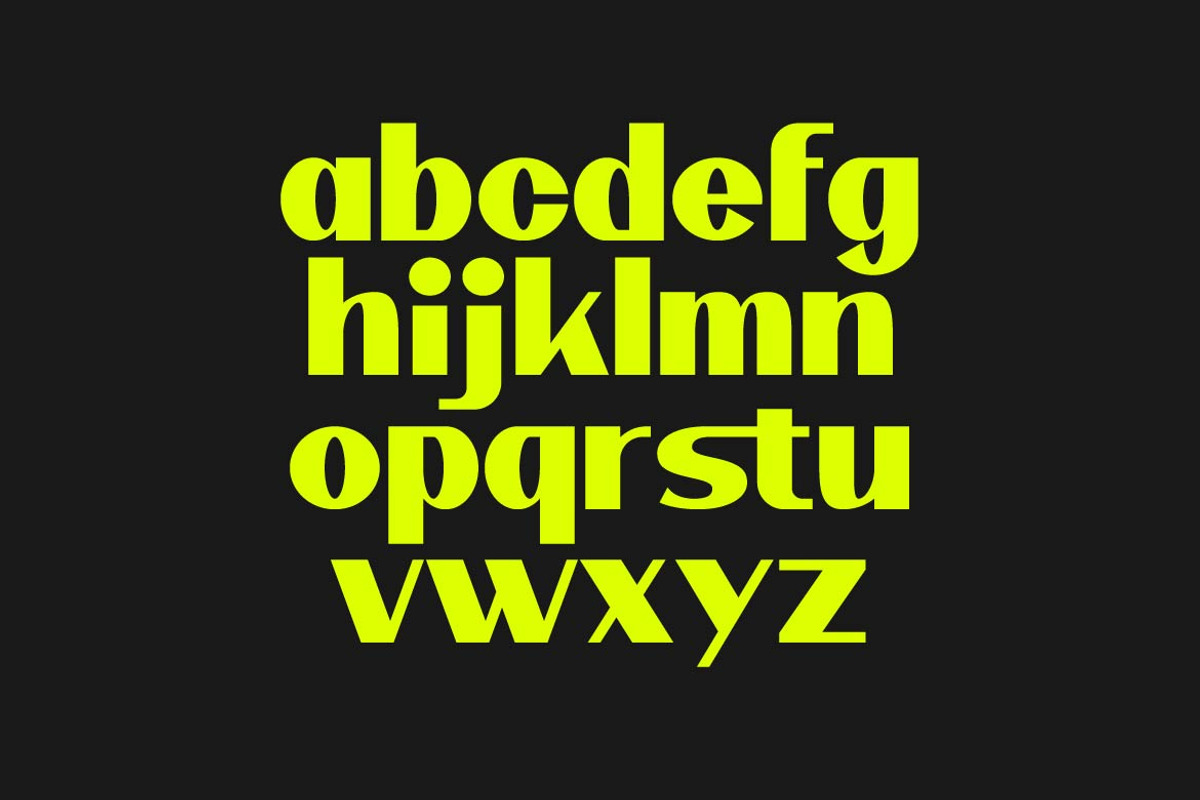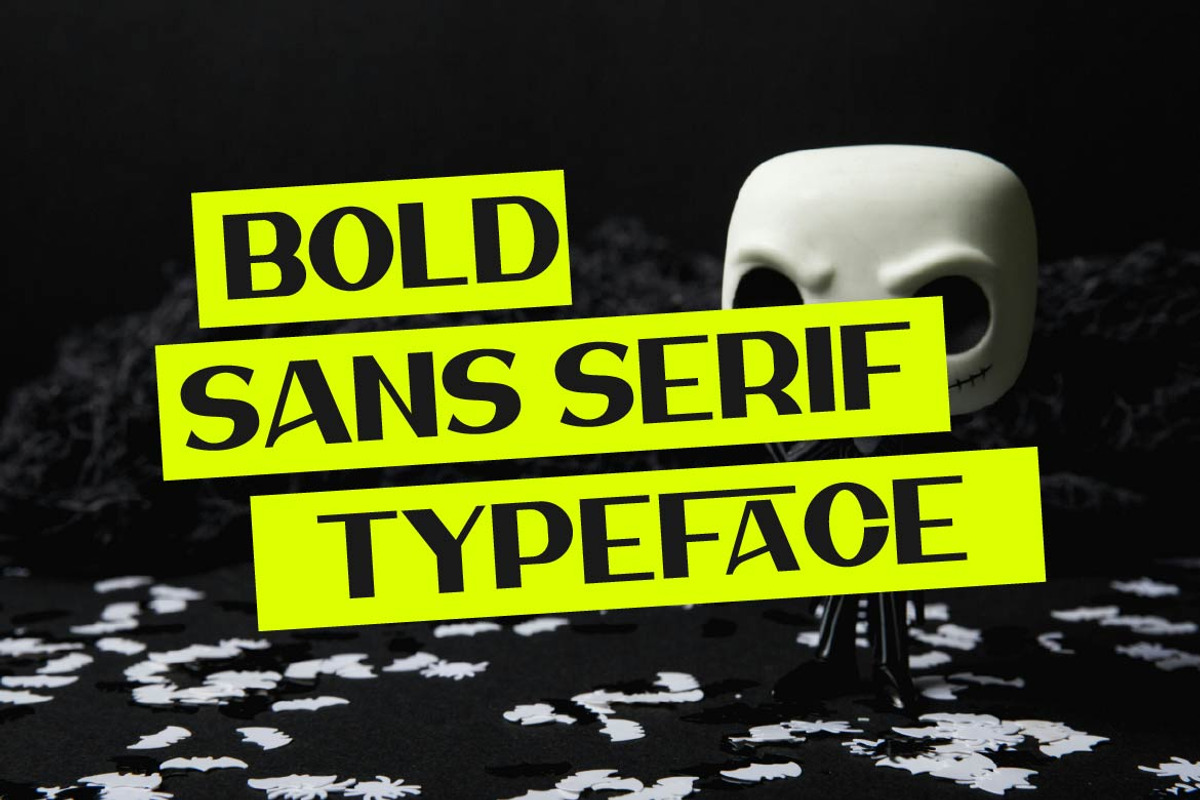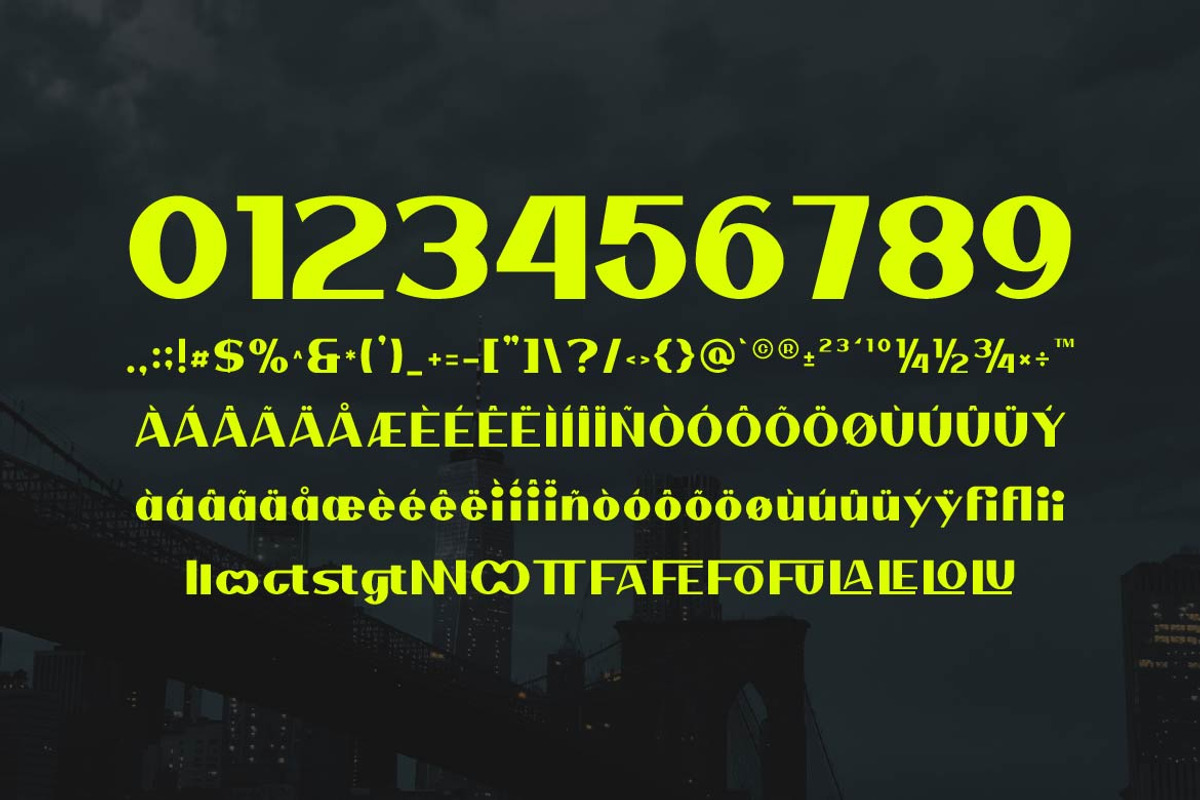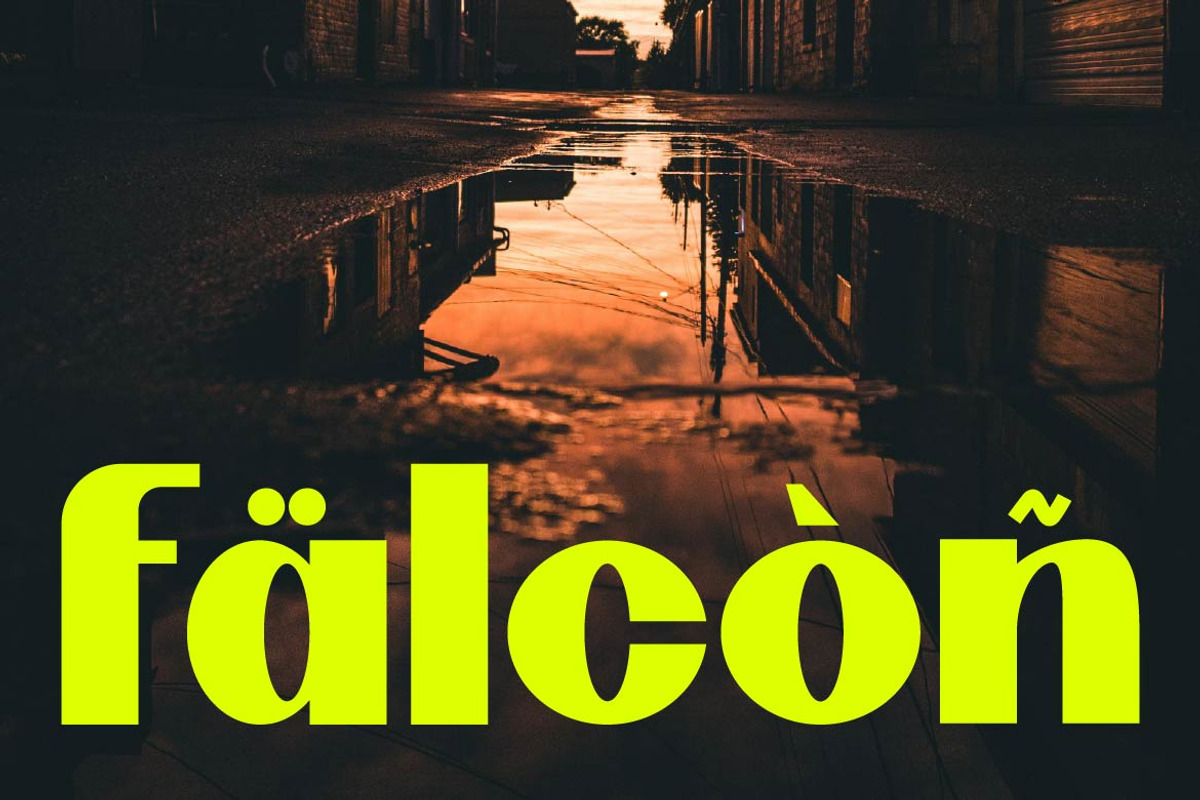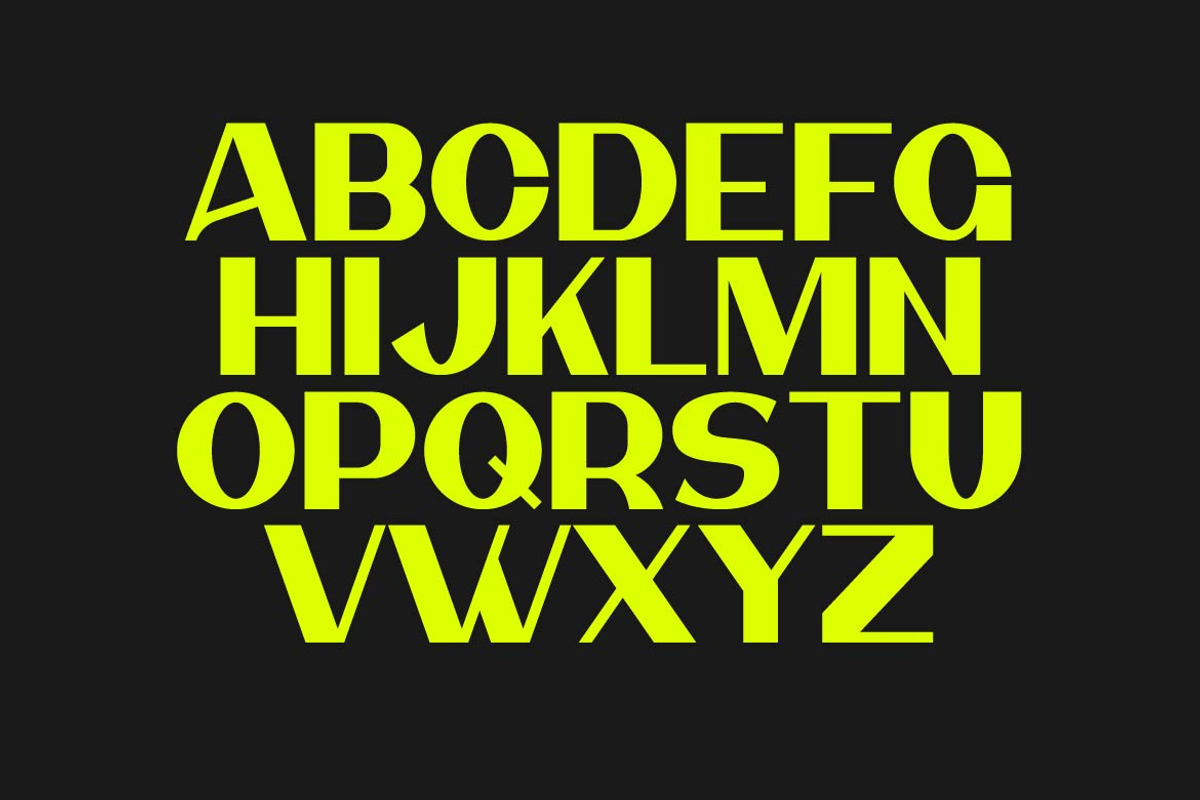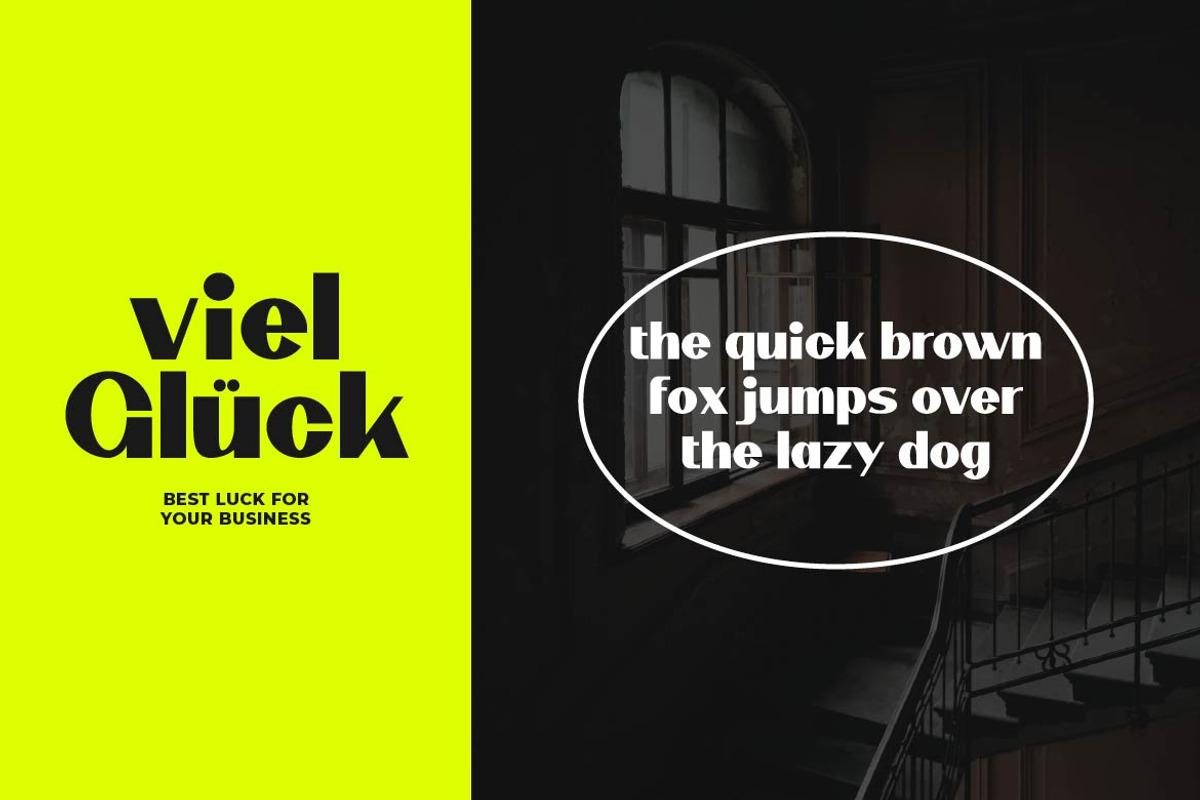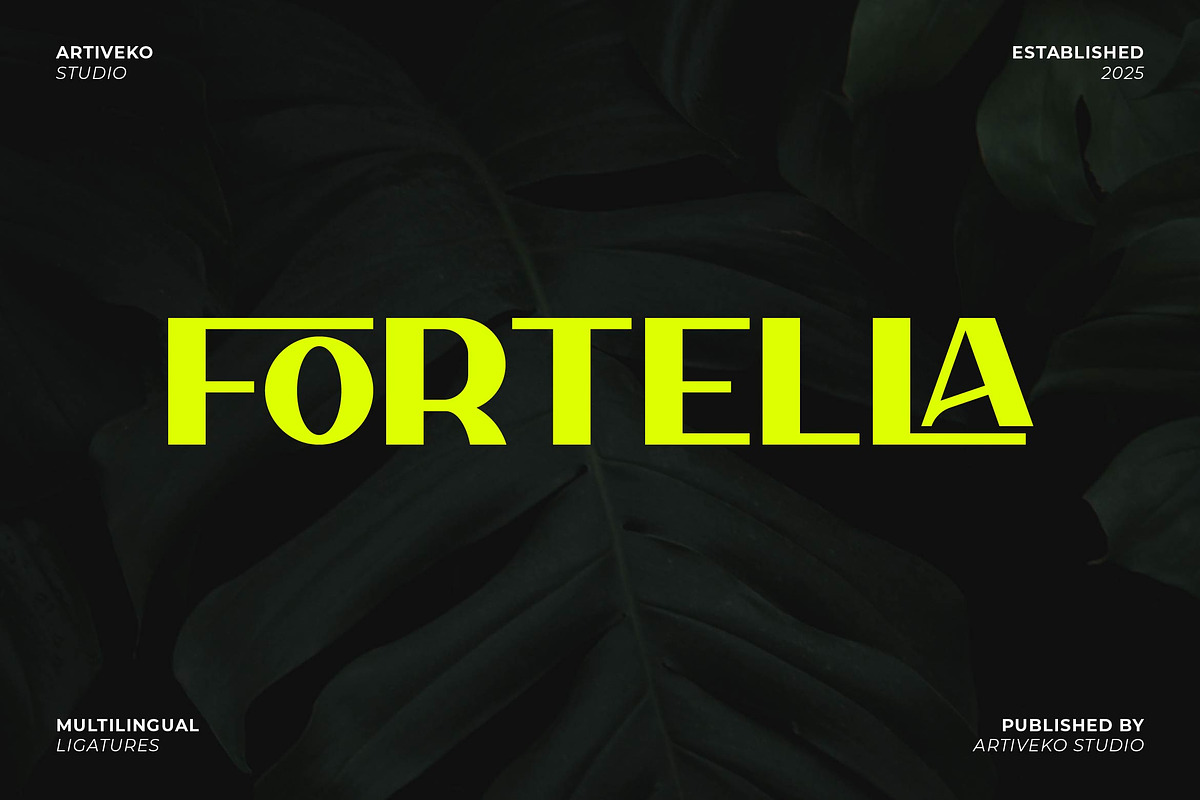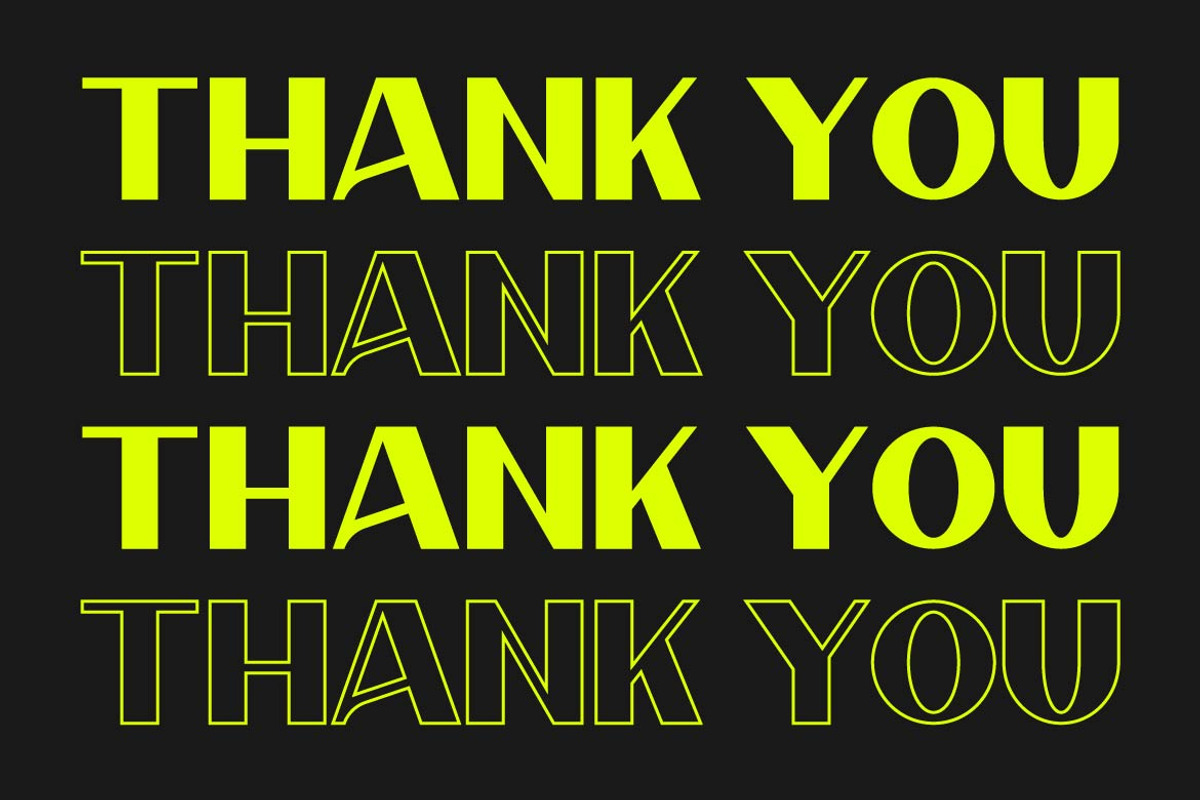
Fortella Creative Sans
Fortella is a modern sans serif font crafted with precision and clarity in mind. Featuring clean lines, balanced spacing, and a contemporary structure, Fortella is perfect for branding, editorial layouts, websites, packaging, and corporate identity systems.